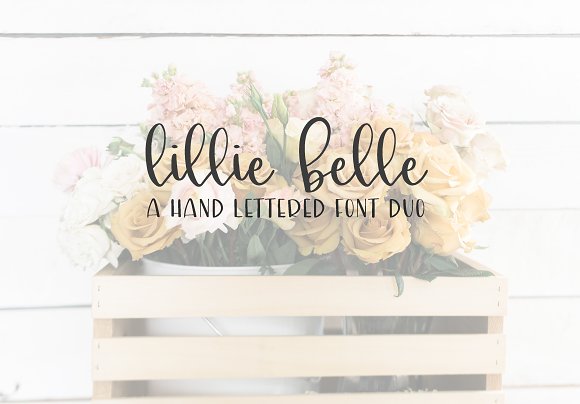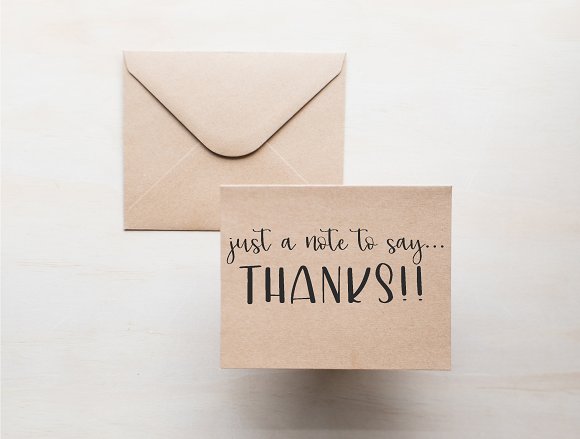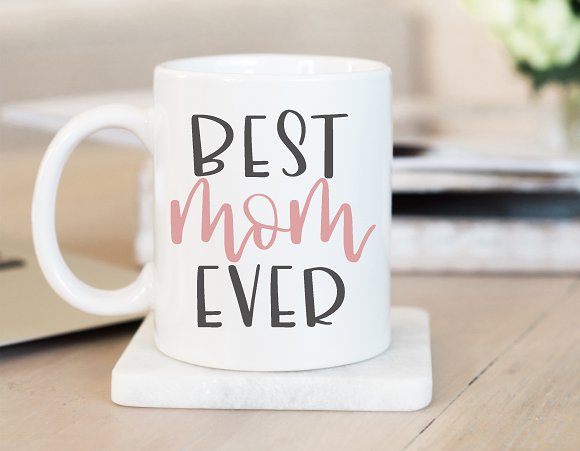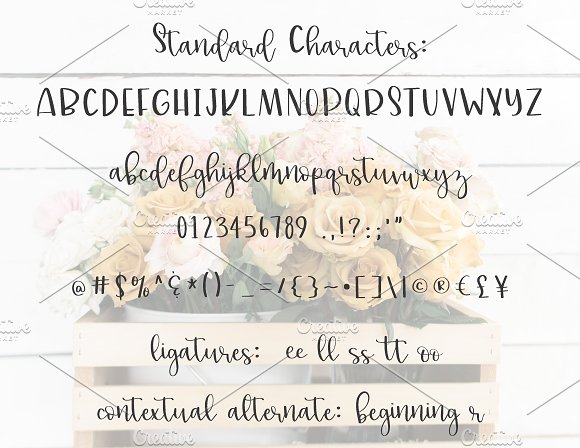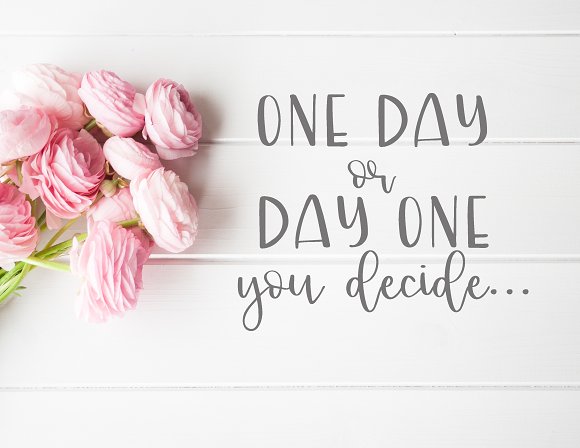
lillie belle hand lettered font
A handlettered font duo with a fun print uppercase and bouncy lowercase. See the last pic for characterss, ligatures and alternates included in the font.